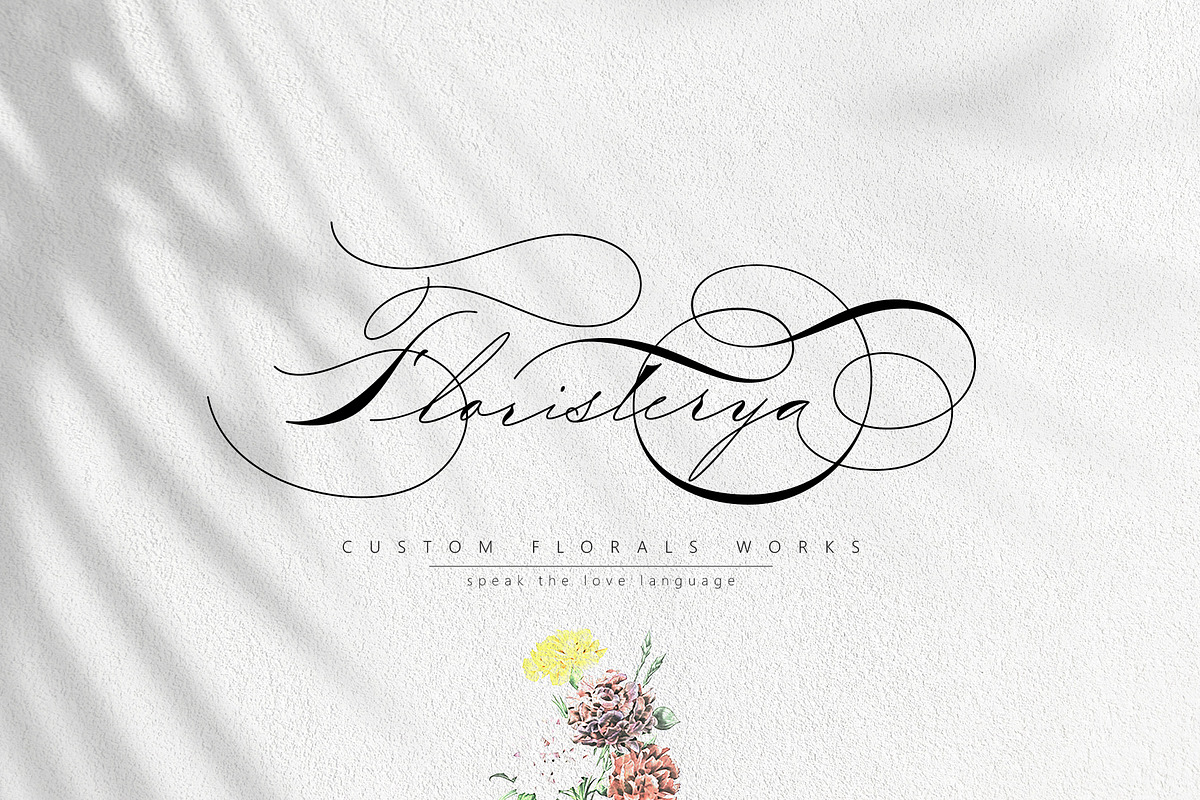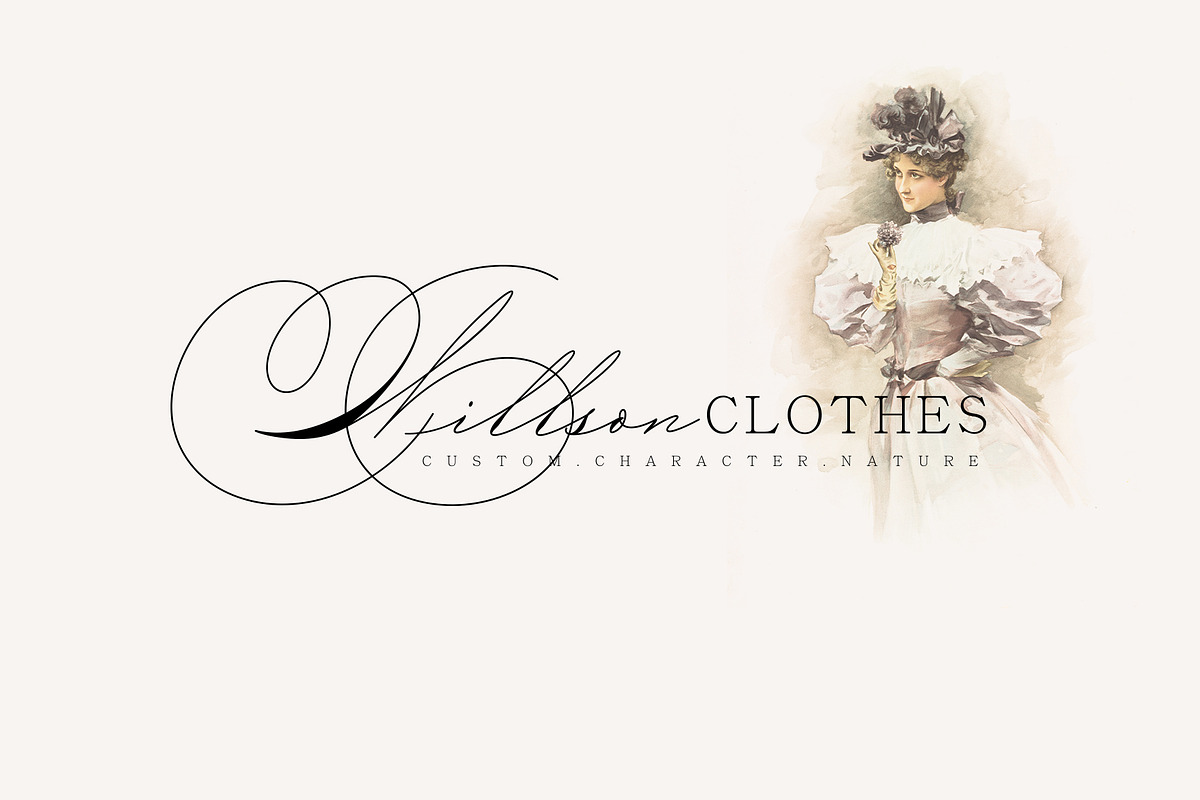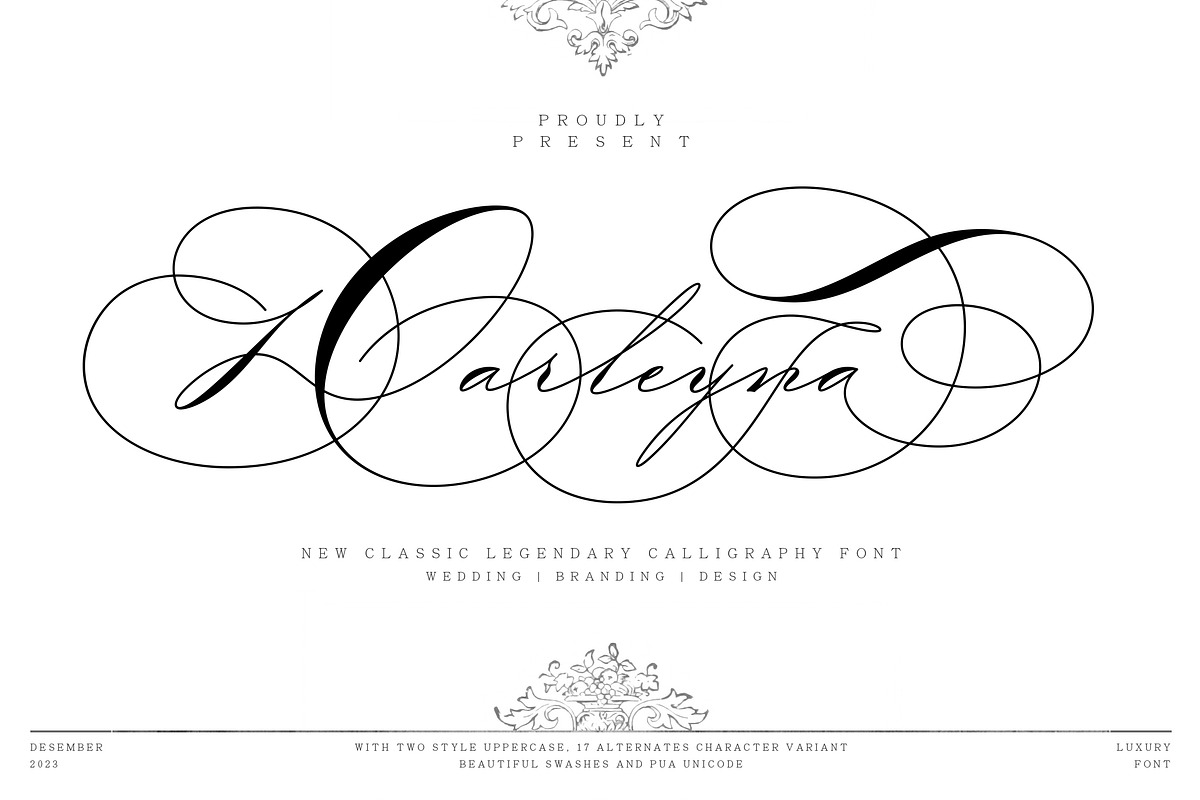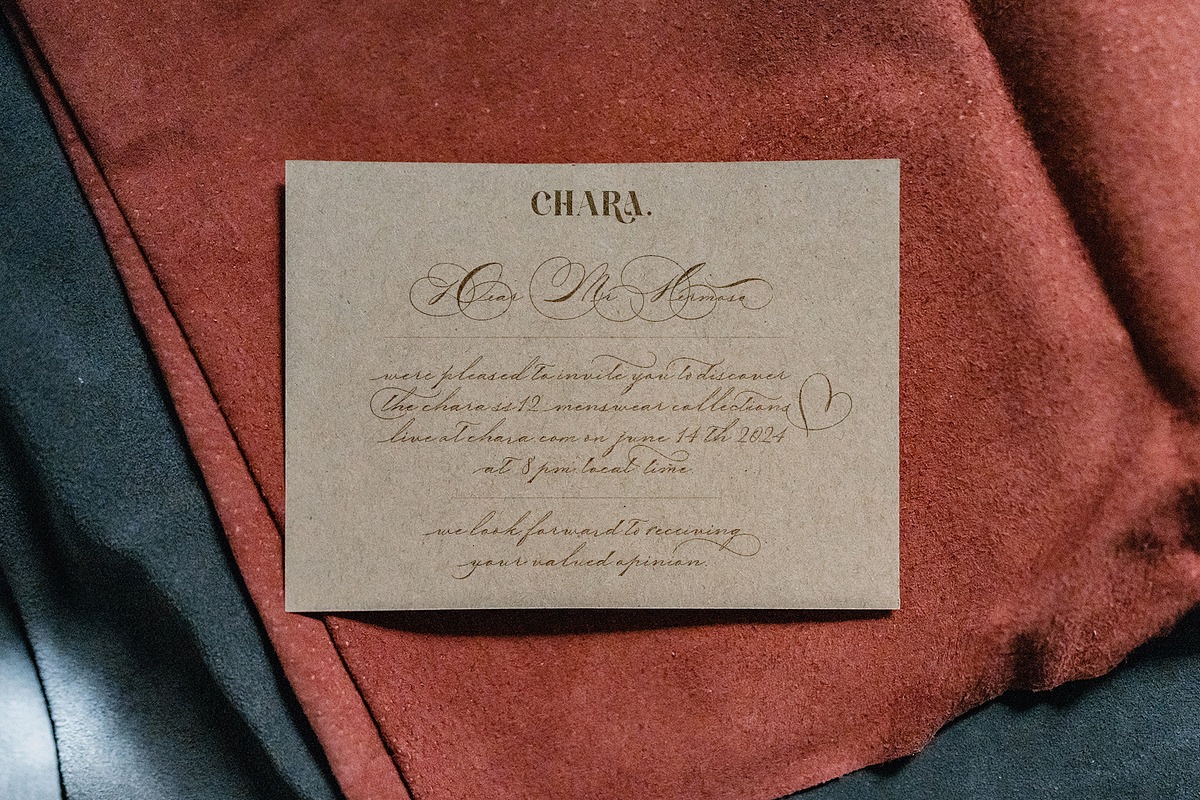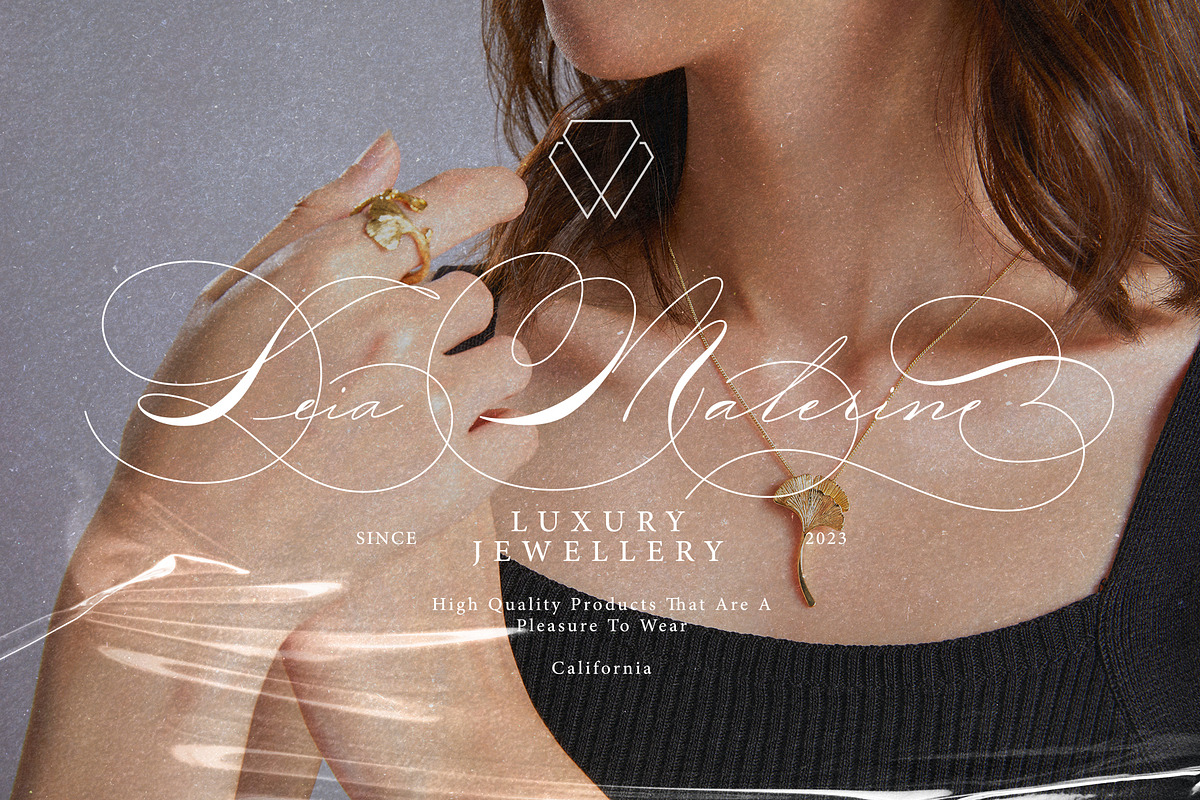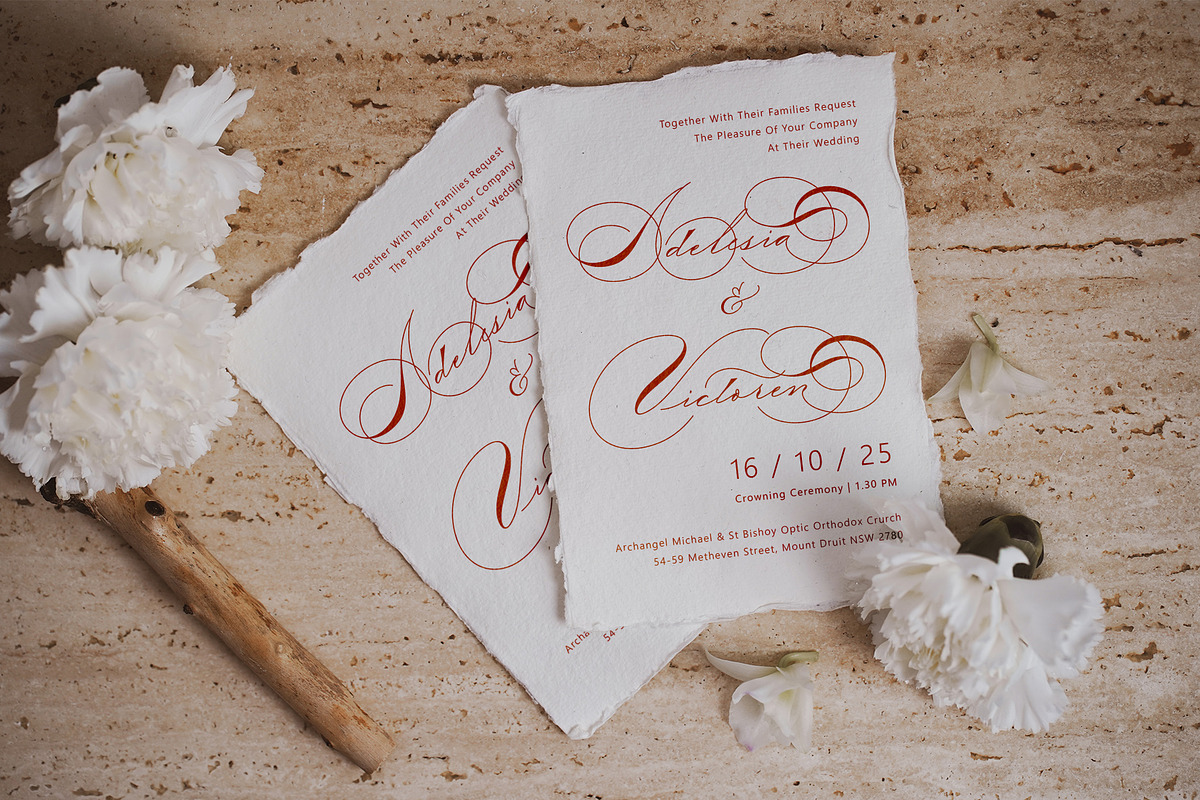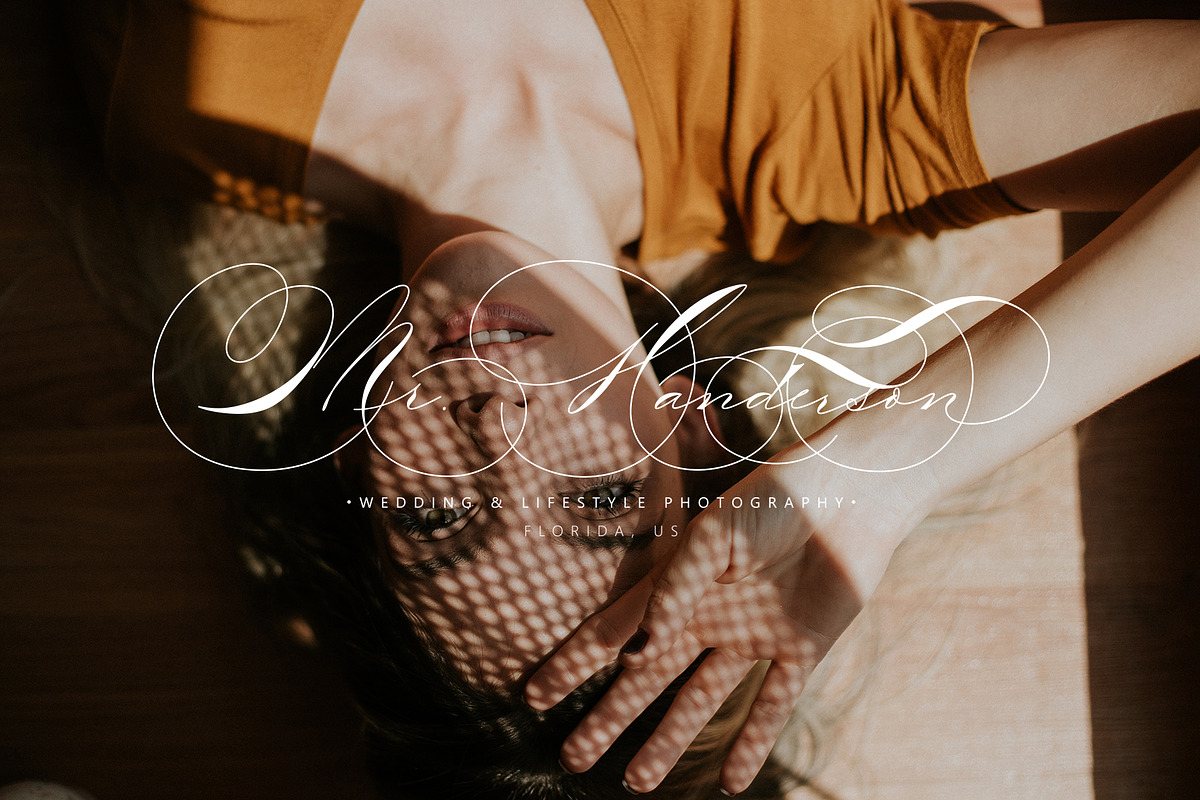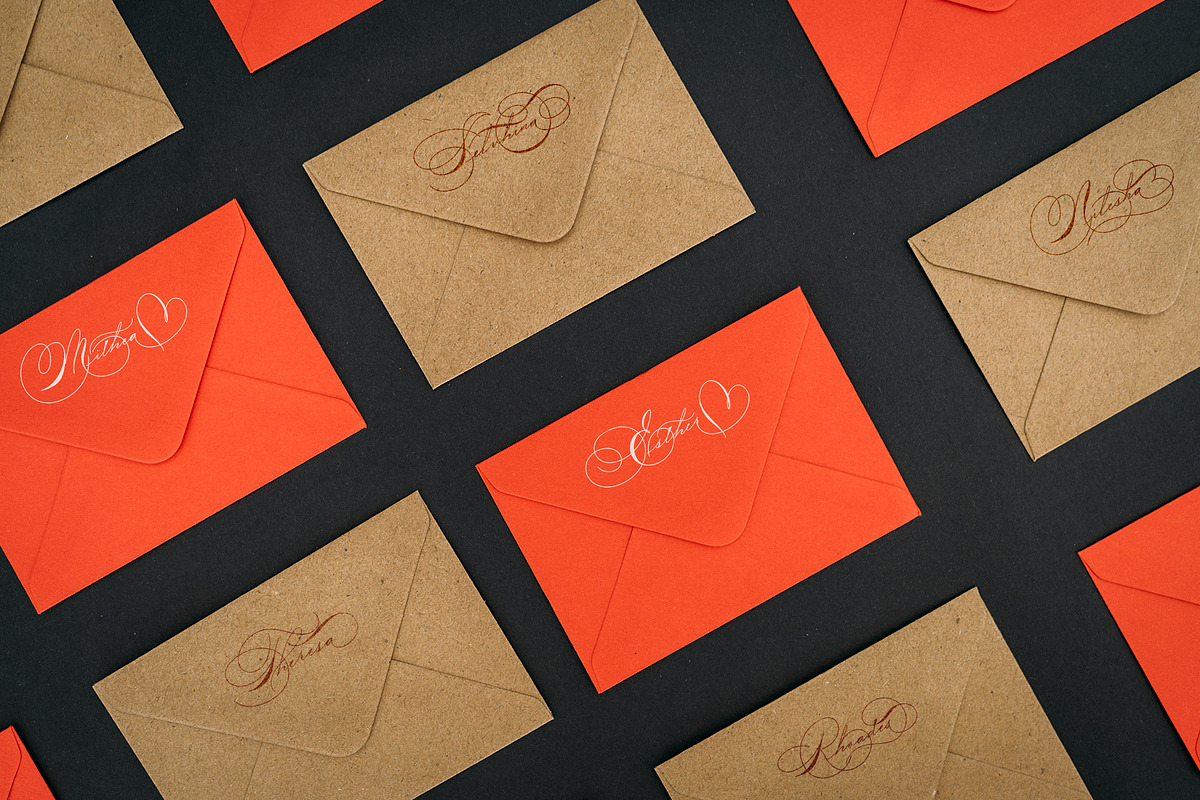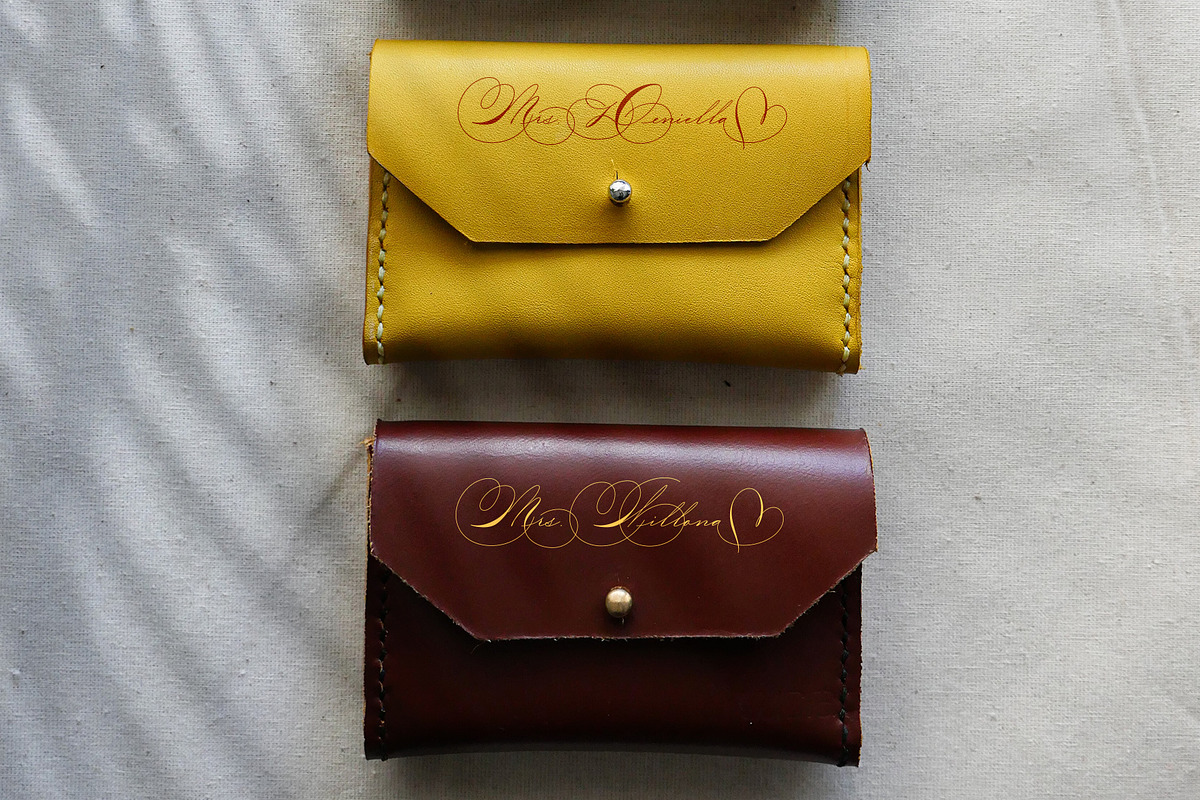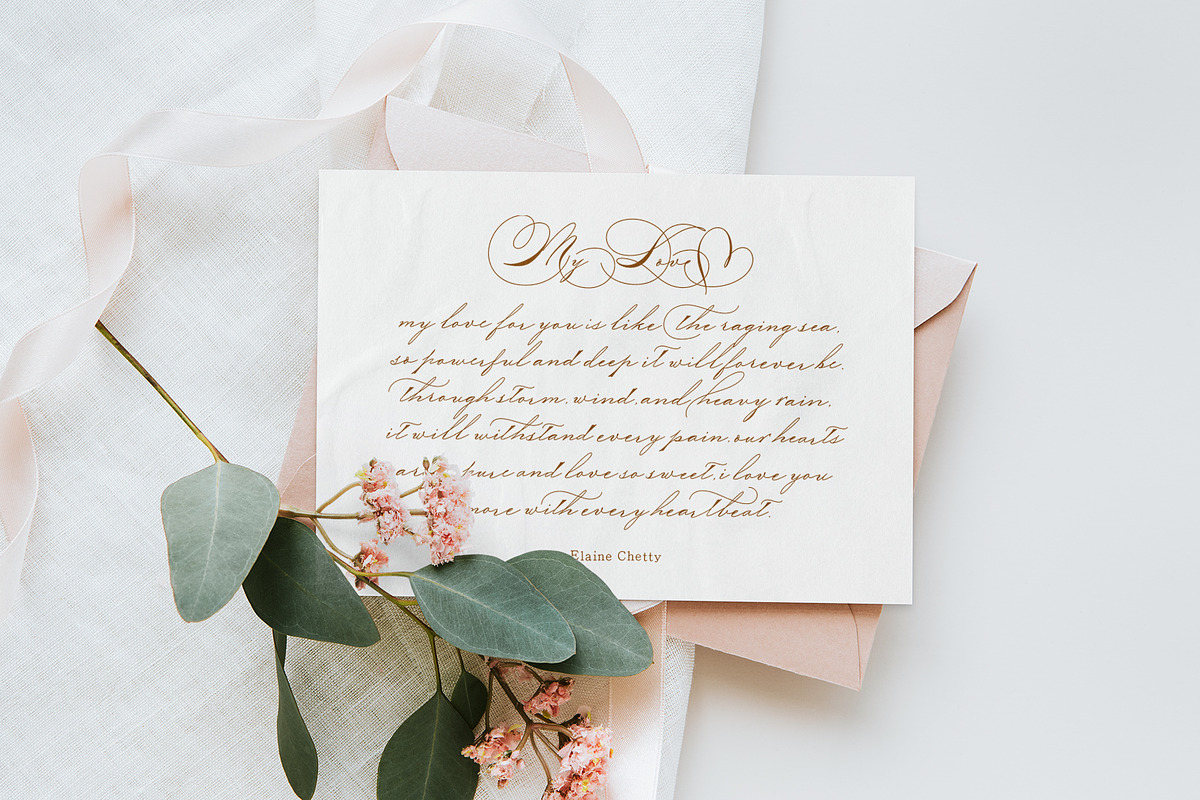
Darleyna
Darleyna is a new classic legendary calligraphy script font that is suitable for branding, wedding invitations, greeting cards, posters, name card, quotes, blog header, logo, fashion, apparel, letter, stationery and other projects.
Darleyna Script come with 600+ glyphs. The alternative characters were divided into several Open Type features such as Swash, Stylistic Sets, Stylistic Alternates, Contextual Alternates. The Open Type features can be accessed by using Open Type programs such as Adobe Illustrator, Adobe InDesign, Adobe Photoshop Corel Draw X version, And Microsoft Word. And this Font has given PUA Unicode (specially coded fonts). so that all the alternate characters can easily be accessed in full by a craftsman or designer.
Darleyna Script : Uppercase ( Two style ) & Lowercase International Language & Symbols Support Punctuation & Number PUA Unicode Range Standard Stylistic Alternates Stylistic Set 1-17 Character Variant Contextual.